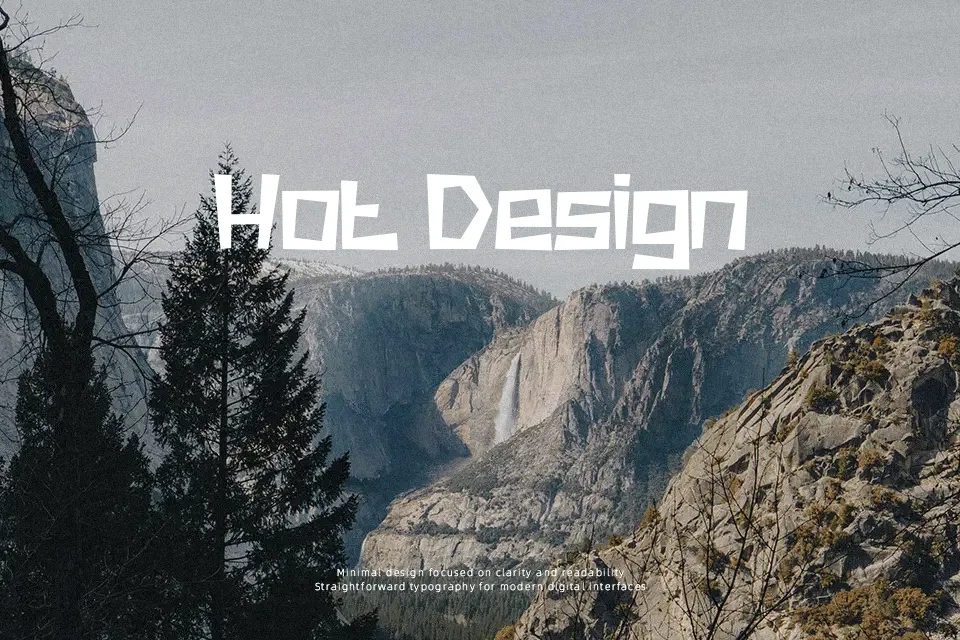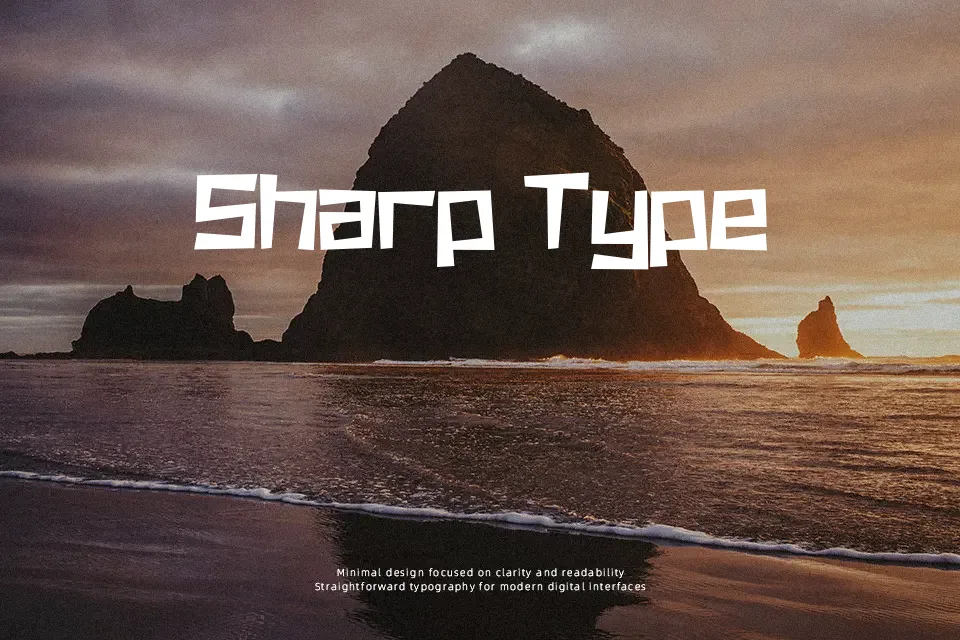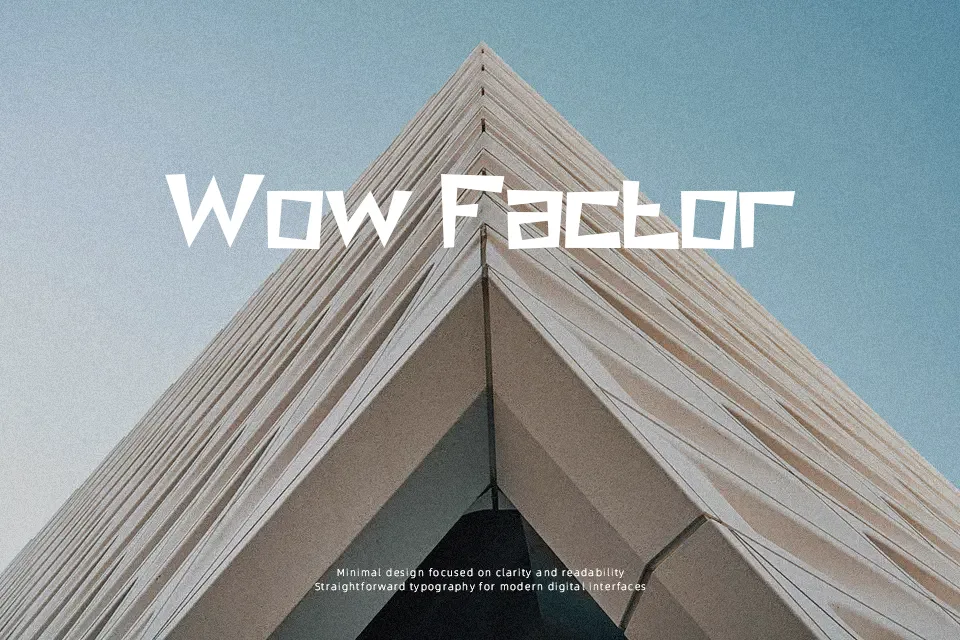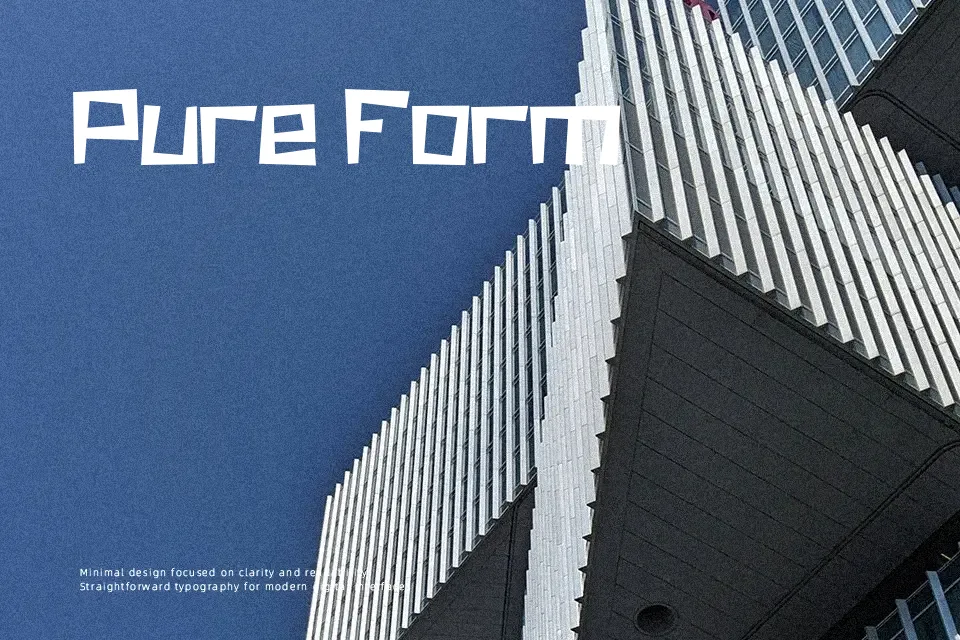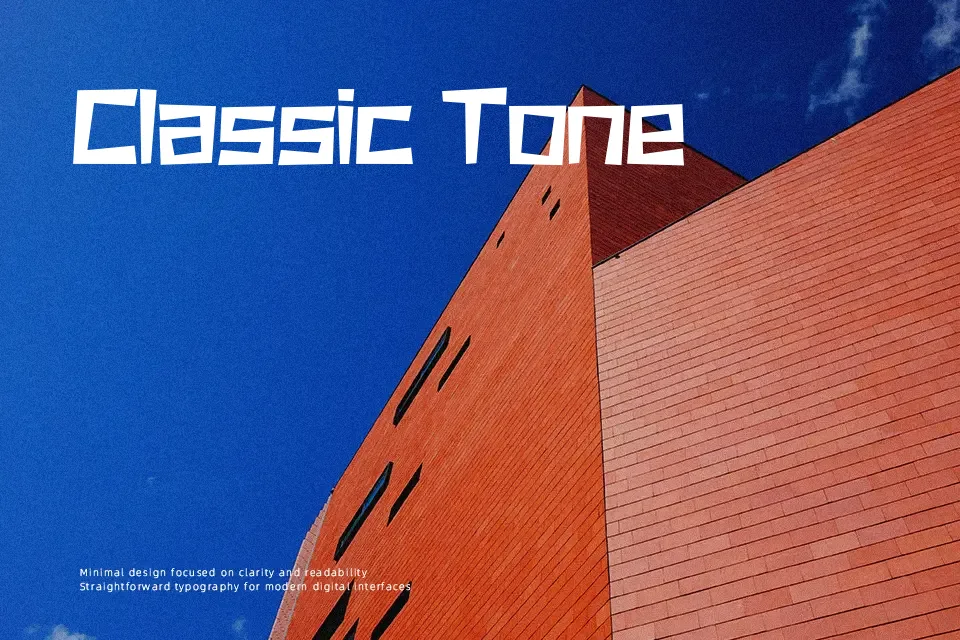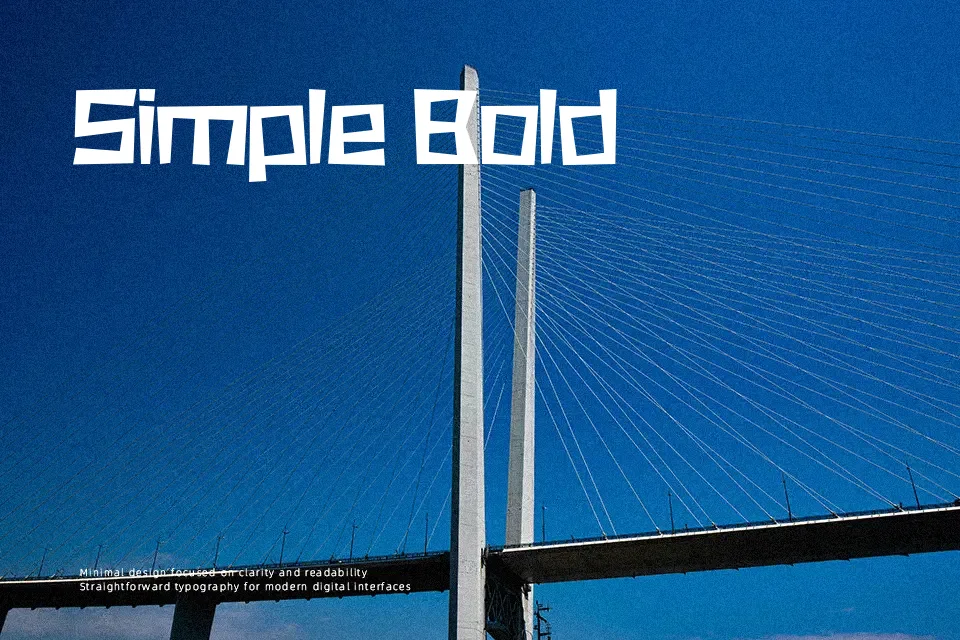
Super Crash Font
Designed by Achmad Yani
Super Crash Font relies on heavy, asymmetrical strokes and pronounced geometric cutouts to create an expressive silhouette. The letterforms combine thick external contours with compact character spacing, establishing an engaging visual rhythm across prominent headings. When applied to gaming assets, youth apparel graphics, or event banners, the typeface provides immediate visual weight at substantial display sizes. Conversely, the dense character structures and compressed counters reduce legibility in continuous text settings, editorial bodies, and dense data tables. For short display titles, the bold construction ensures strong focal clarity while retaining an entertaining, unpolished aesthetic.
Best For: children’s book titles, video game title screens, youth apparel graphics, cartoon sticker packs
Not Ideal For: long body paragraphs, formal corporate documents, technical spreadsheets, compact interface labels